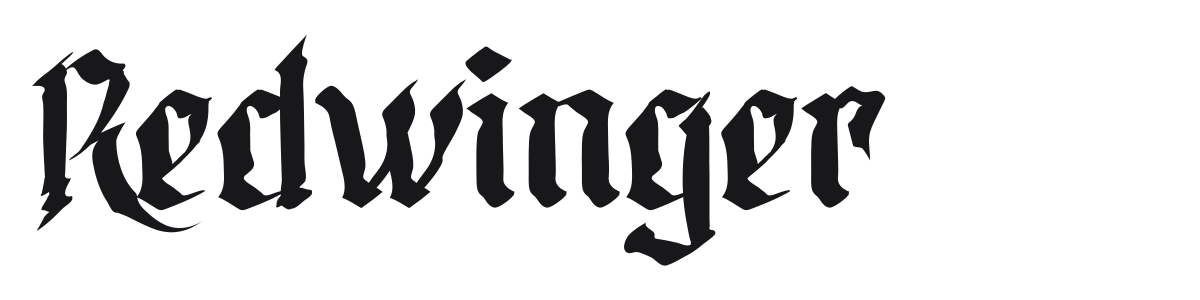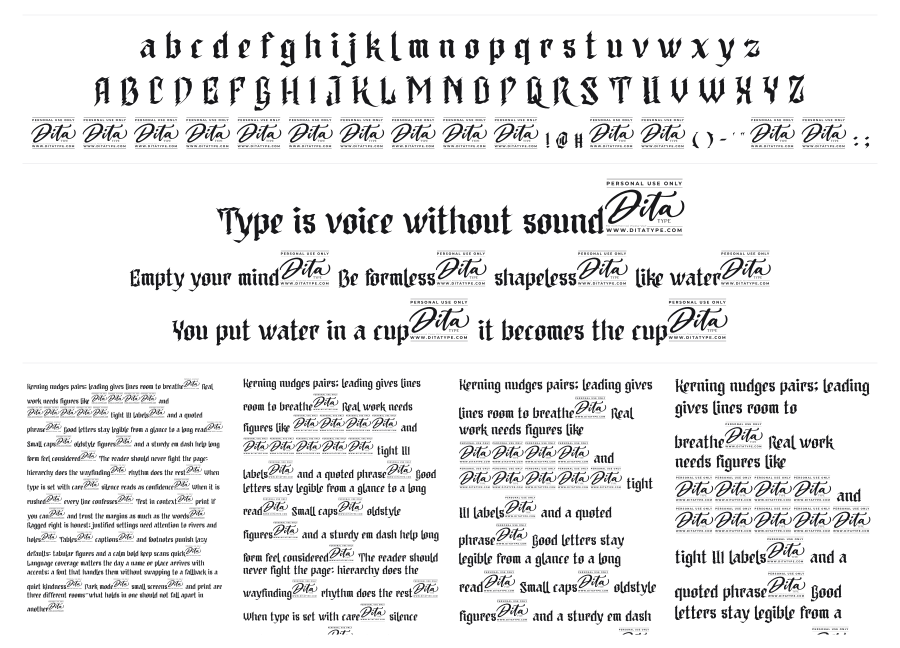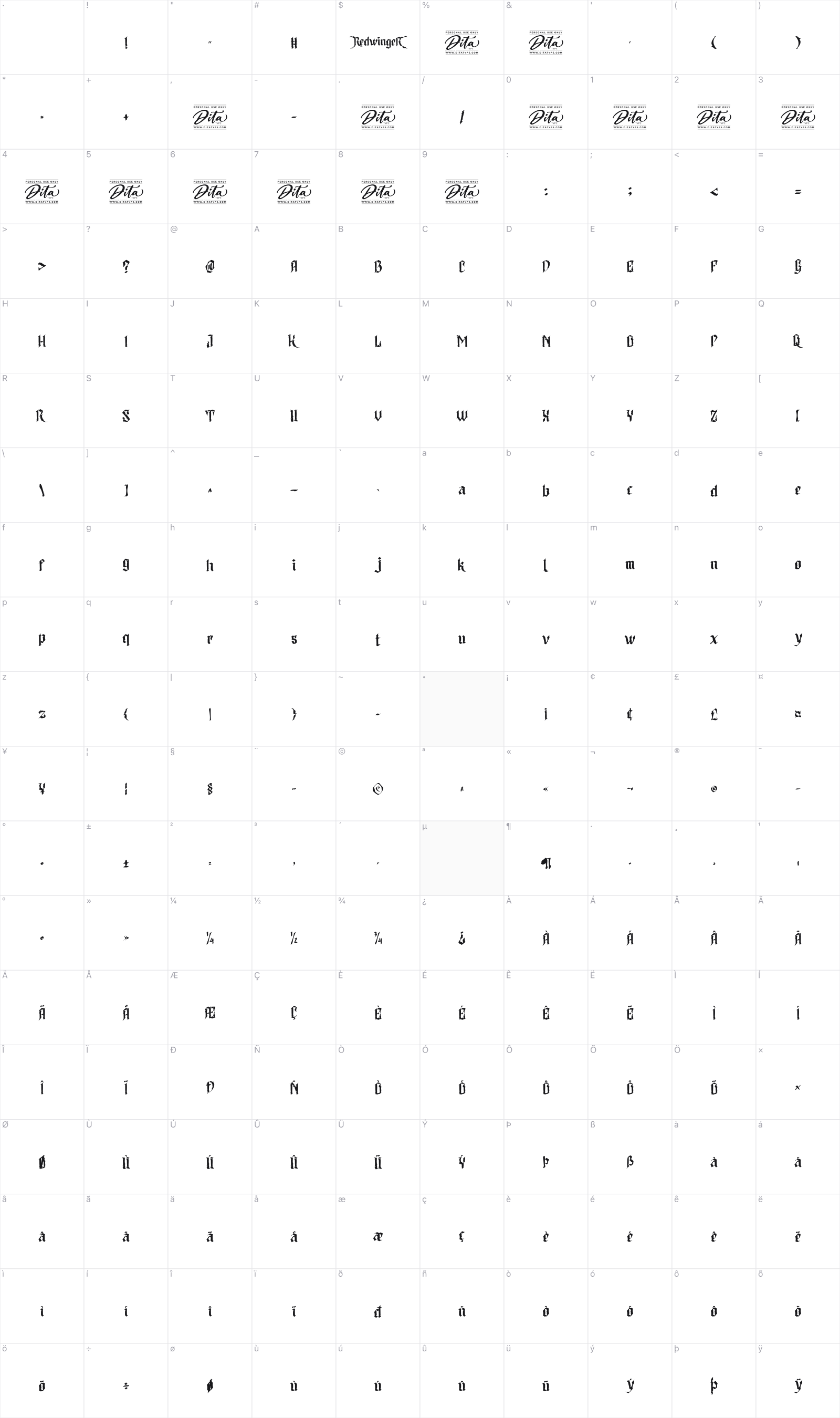
Redwinger
Redwinger is a heavy gothic blackletter with bold angular strokes and a rough, ink-worn texture throughout. The distressed edges give it a raw, hand-carved energy that separates it from cleaner, more formal blackletter revivals. It reads strongly at large sizes for posters, album art, logos, and anywhere a dark or underground aesthetic is called for.